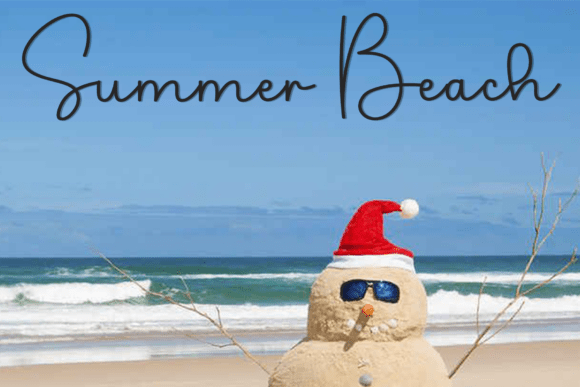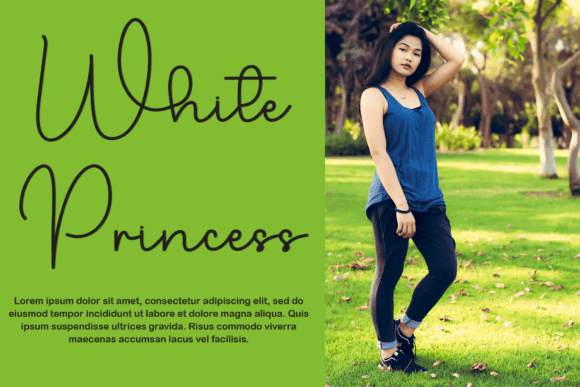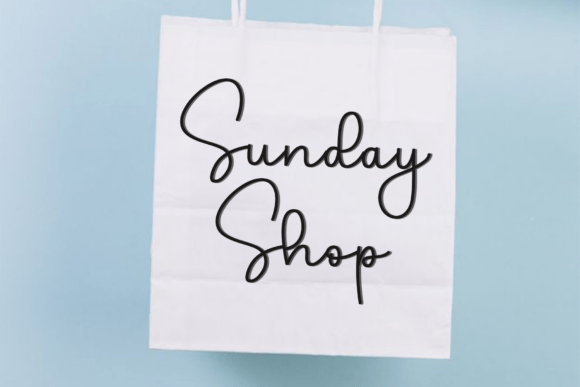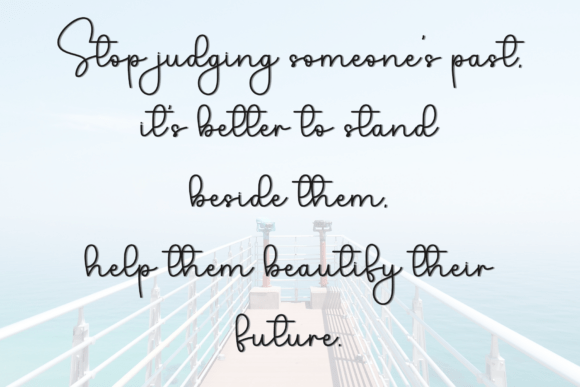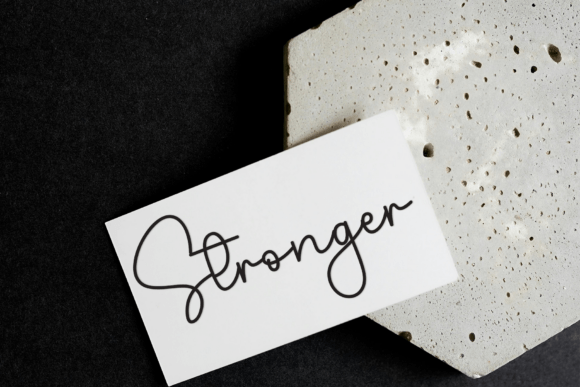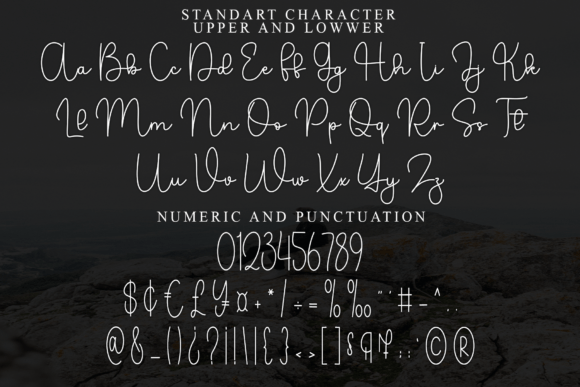
Introduction to Regular Font
Do you remember the excitement of decorating your room for the holidays as a child? The twinkling lights, the colorful ornaments, and the festive font on your handmade cards and gift tags? That magical feeling can be recreated with the perfect design resource – the Regular Font.
As a designer, you know the importance of choosing a high-quality font that captures the essence of your creative project. With its whimsical flair and decorative elements, the Regular Font is the perfect choice for holiday-themed designs. Whether you’re creating greeting cards, gift tags, or other festive projects, this font adds a touch of enchantment to your words, making it a valuable design resource for any designer. And with its PUA encoding, you can access all the amazing glyphs and ligatures with ease, making it a free download that’s sure to become a favorite in your design arsenal.
Key Features of Regular Font
- High-quality design resource suitable for various creative projects, including digital art, graphic design, and publishing.
- Features a transparent background, allowing for seamless integration with any design or layout.
- Designed to provide a clean and legible reading experience, making it ideal for body text, titles, and headings in various contexts.
- Includes a range of glyphs and characters, supporting multiple languages and scripts for diverse creative projects.
Honest Review: Regular Font
I recently came across the Regular Font while working on a creative project and I must say it’s been a game-changer. This font is a high-quality design resource that’s perfect for any project that requires a clean and simple look.
What works well is its versatility – it’s a great choice for both print and digital projects. The font’s transparent background makes it easy to overlay text on images, which is a huge plus for designers. I’ve also found it to be very easy to use and customize, making it a great addition to any design workflow.
- ✨ High-quality design resource
- ✨ Versatile for both print and digital projects
- ✨ Easy to use and customize
- ✨ Transparent background for easy text overlay
However, I do have to mention a few limitations. The Regular Font is a relatively simple font, which can make it feel a bit generic at times. Additionally, it may not be the best choice for projects that require a lot of bold or italic text.
- ⚠️ May feel generic at times
- ⚠️ Not ideal for projects with bold or italic text
Overall, I’m really impressed with the Regular Font. It’s a great design resource that’s perfect for anyone looking for a clean and simple look. Plus, it’s available for free download, making it an excellent choice for designers on a budget.
Regular Font is a high-quality design resource ideal for creative projects. It offers a transparent background, making it easy to use in various design applications.
Tips for Getting the Most Out of Regular Font
Use Regular Font in conjunction with other design elements to create a cohesive look. Experiment with different font sizes, colors, and styles to add visual interest to your design.
Common Use Cases for Regular Font
Regular Font is suitable for a variety of design projects, including brochures, business cards, and social media graphics. It’s also a great choice for creating presentations and reports.
Comparison to Regular Font: Arial is more versatile and has a larger character set, making it a better choice for long documents and websites. It also has a more modern look compared to Regular Font.
Can I use the Regular Font for high-resolution printing?
Yes, the Regular Font is designed to be used in high-resolution printing. The font’s high quality and clear typography ensure that it will look great even in large sizes and high-resolution formats. However, please note that the font’s transparency may not be preserved in certain printing environments. It’s always a good idea to test the font in a print preview before finalizing your design.